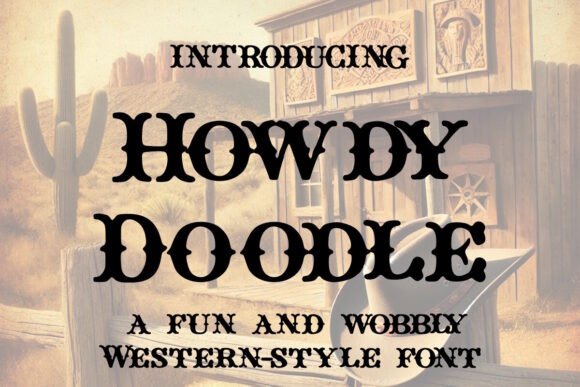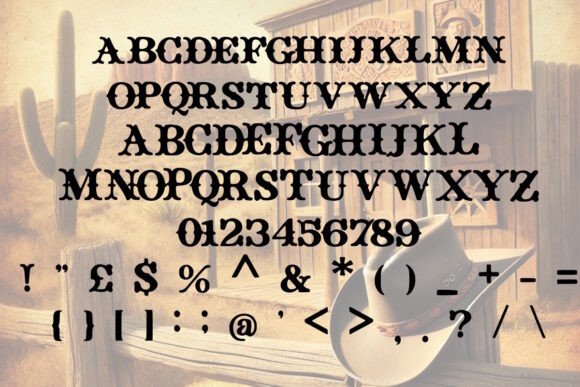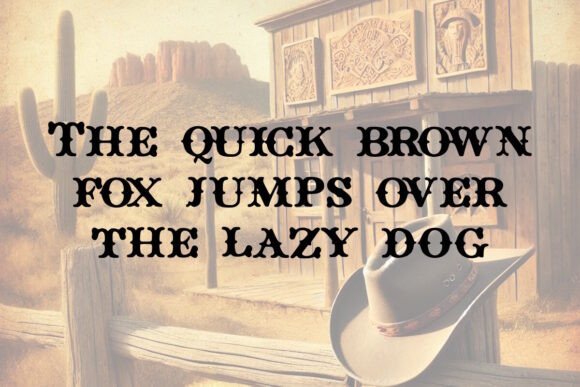
Howdy Doodle Font: A Playful Western Display Font for Unique Designs
About the Howdy Doodle Font
Crafted with precision, the Howdy Doodle Font is ready to bring your ideas to life. Yeehaw! Wobbly, wonky, and full of Western charm—Howdy Doodle is a rootin’ tootin’ font that brings a whole lot of personality to your designs! With its bouncy serifs and hand-drawn quirks, this typeface blends old-timey saloon vibes with a playful twist. Whether you’re wrangling up a rodeo poster or adding a touch of frontier fun to your branding, Howdy Doodle is the perfect partner for your next creative adventure.
Howdy Doodle thrives in applications requiring a playful and approachable aesthetic. It excels in headlines, short titles, and branding elements where its quirky charm can shine. Consider using it for posters, packaging for novelty items, or children’s products. However, its highly stylized nature makes it unsuitable for body text or lengthy paragraphs; readability suffers at smaller sizes.
For optimal visual harmony, pair Howdy Doodle with clean sans-serif fonts like Open Sans or Lato for a balanced contrast. Alternatively, a classic serif like Merriweather can provide a sophisticated counterpoint, grounding the playful energy of Howdy Doodle. Avoid pairing it with other highly decorative or whimsical fonts, which would create visual clutter.
Howdy Doodle’s core personality is undeniably playful and friendly, with a touch of rustic charm. It’s best suited for brands and projects that embrace a lighthearted, folksy, or nostalgic feel.